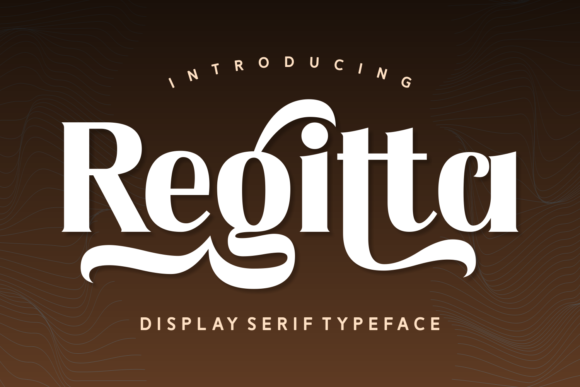
Regitta Font
Embark on a typographic adventure with Regitta Font – a captivating display serif typeface that exudes charm and sophistication. Immerse yourself in the world of food and drink, where Regitta's elegant curves and retro flair take center stage on menus, labels, and packaging, enticing customers with a taste of culinary artistry.
Step into the realm of floral elegance, where Regitta's delicate strokes dance across flower shop websites, inviting customers to explore a symphony of blooms. Its timeless beauty adds a touch of nature's allure to every digital bouquet.
Picture the perfect wedding invitation, adorned with Regitta's graceful letters, beckoning guests to a day of love and celebration. Its versatility extends to logos, branding, cards, and quotes, leaving an unforgettable mark on every creative project.
With Regitta Font in your design arsenal, ordinary words transform into exquisite works of art. Its Regular and Italic versions provide the perfect canvas for expressing your unique style, whether it's bold and eye-catching or subtly sophisticated.